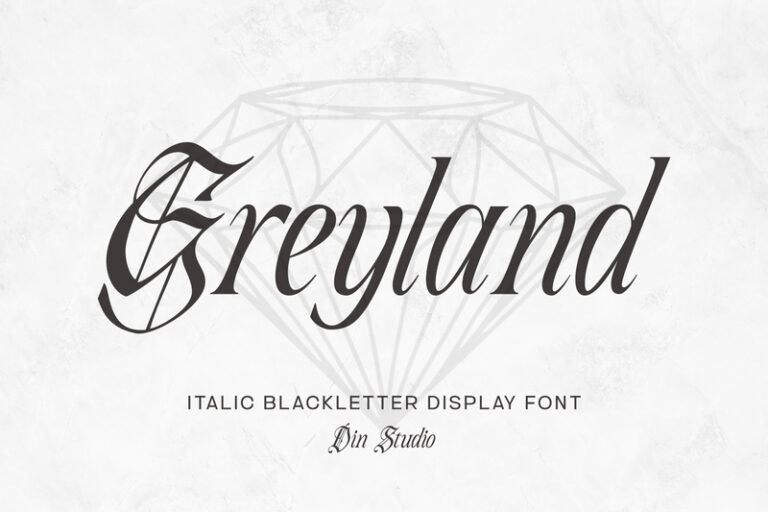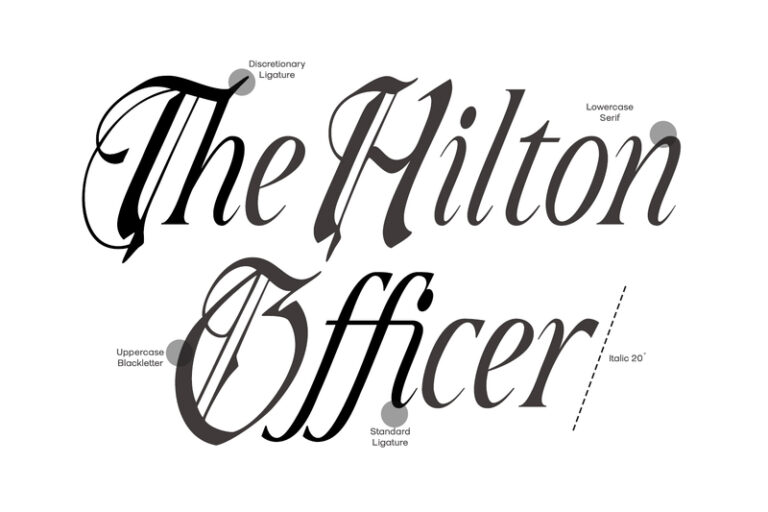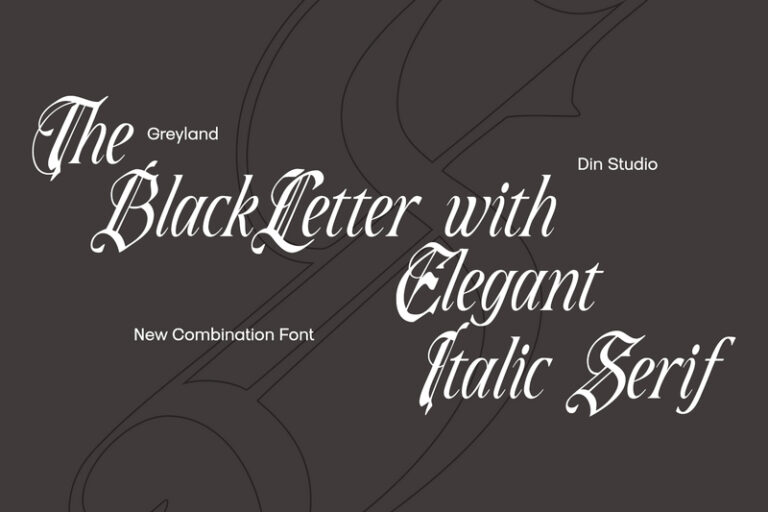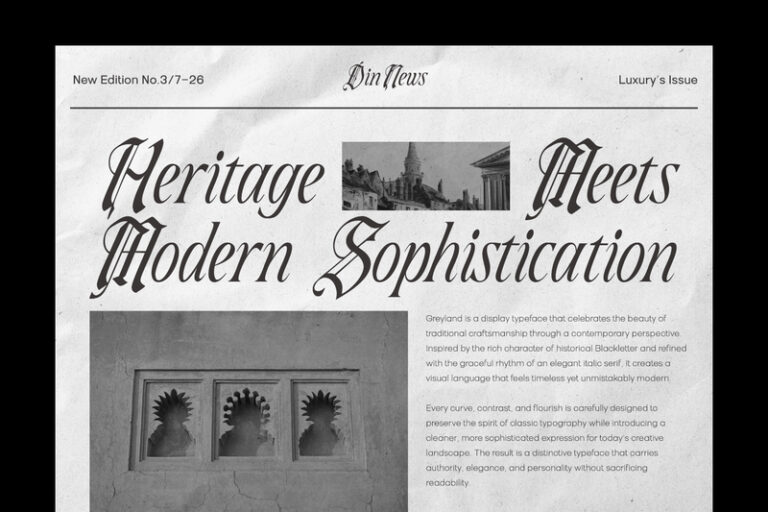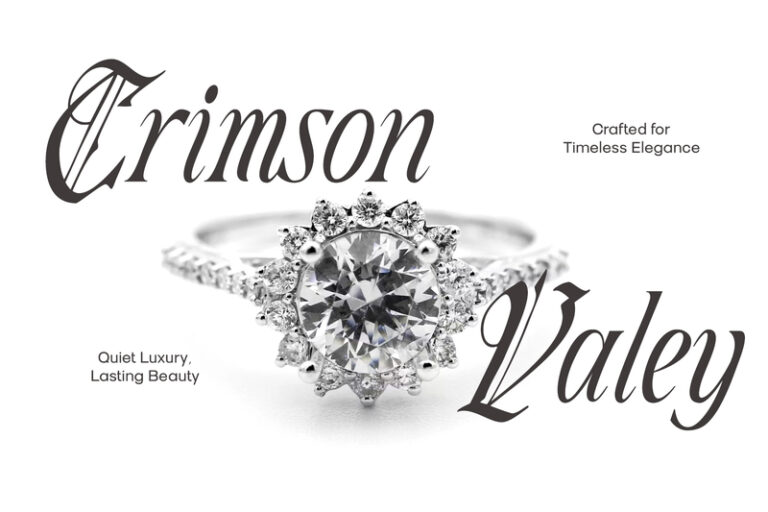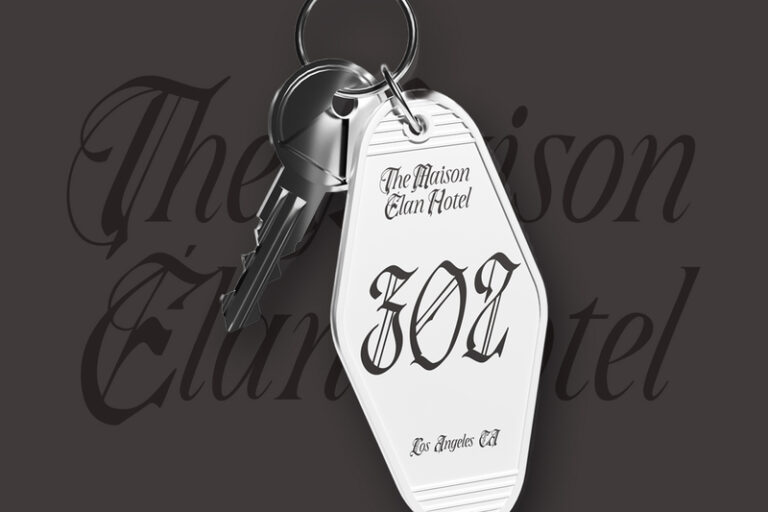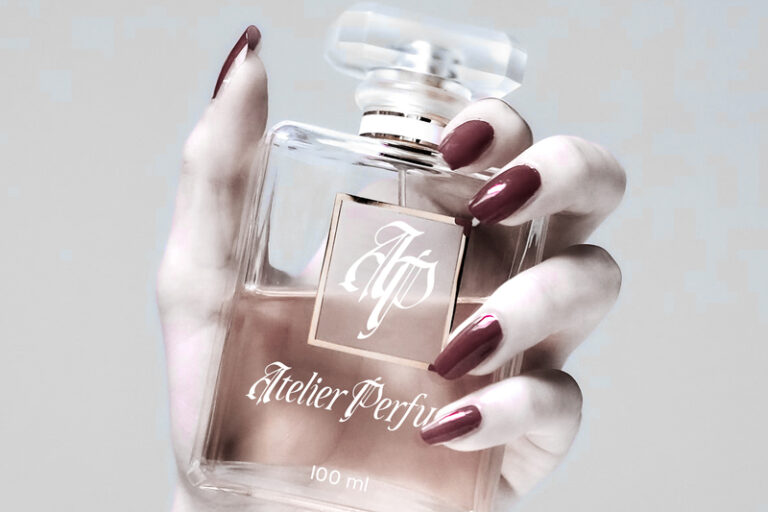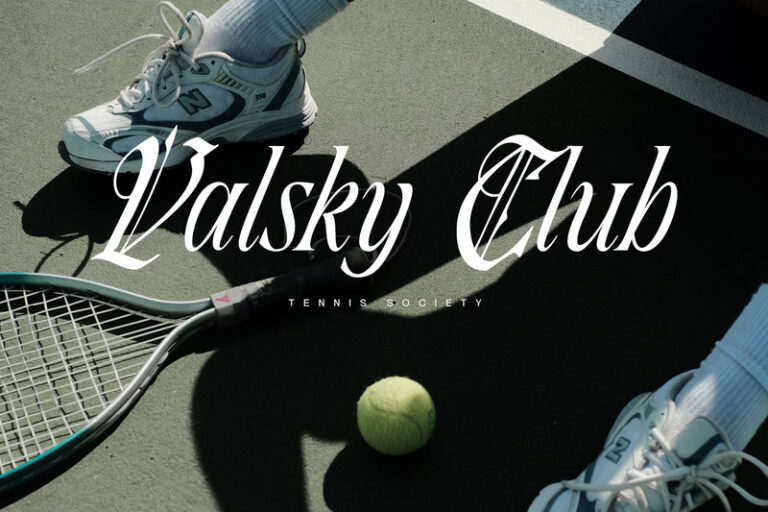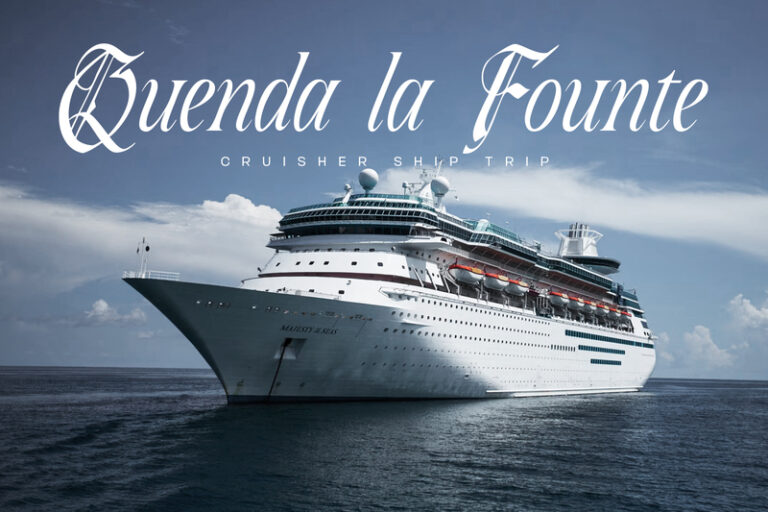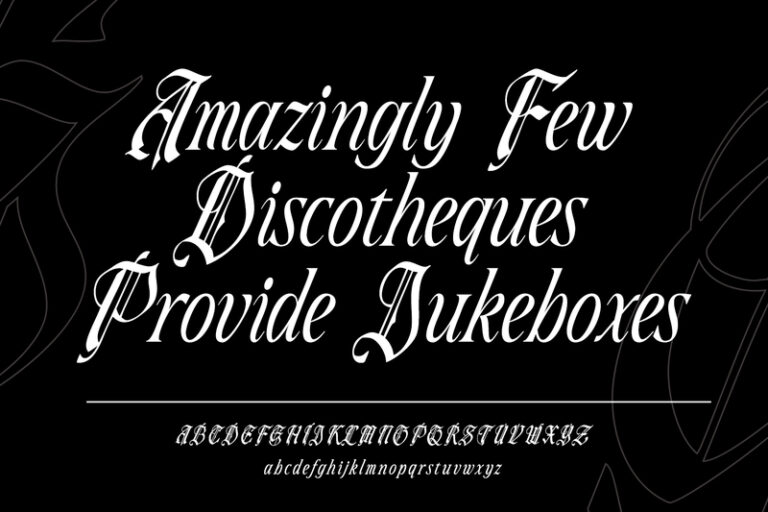
Greyland – Blackletter Display Font
Greyland
Greyland is a refined italic blackletter display font that brings a fresh, contemporary perspective to the dramatic beauty of Gothic typography. Designed with a lightweight structure, graceful proportions, and a distinctive italic flow, Greyland combines traditional blackletter character with a clean and modern aesthetic. Its elegant letterforms create a sophisticated visual presence, making it an excellent choice for designers looking to add personality and historical influence to their work without feeling overly heavy. In addition, enjoy the features here.